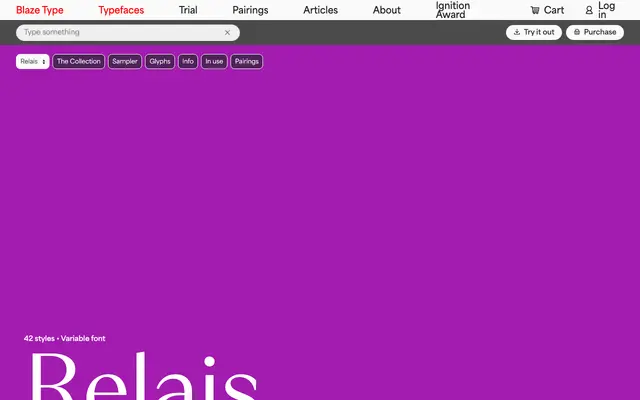
A display sans in three width families — Compressed, Condensed and Normal — running across seven weights with matching italics and variable font support.
Forty-two styles spread across Compressed, Condensed and Normal subfamilies, each offering ExtraLight through Black with italics at every weight. The width range makes it suited to high-density headlines, magazine covers and poster work where spatial economy matters. Variable font support allows continuous interpolation across weight and width axes.
Named 'Relais Display' across all styles, the family is positioned as a display-oriented sans with compressed and condensed width variants, spanning a broad weight range built for headline and editorial use.